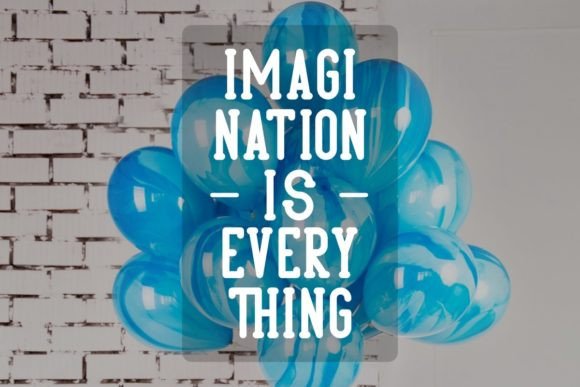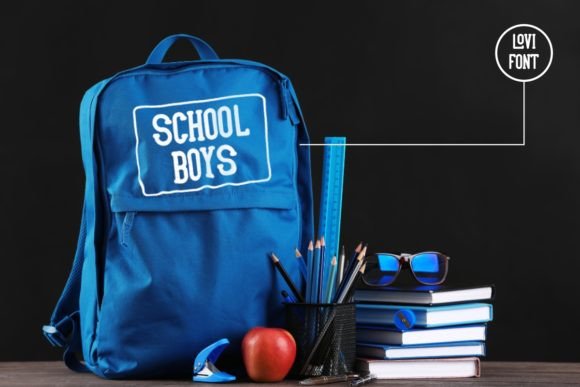
Introduction to Lovi Font
Do you remember that moment when you stumble upon a design resource that changes the game for your creative project? For many designers, it’s that ‘aha’ moment when a unique font can elevate a concept from bland to grand. For us, that moment came when we discovered the Lovi Font – a vibrant and playful typeface that’s perfect for adding a dash of excitement to any design project.
With its high-quality design and transparent background, the Lovi Font is an ideal addition to any designer’s toolkit. Its dynamic and expressive nature encourages experimentation and creativity, allowing you to craft unique and memorable designs that capture attention. Whether you’re working on children’s products, playful branding, or invitations, the Lovi Font is sure to bring a sense of whimsy to your designs.
Key Features of Lovi Font
- High-quality, professional design resource ideal for creative projects.
- Transparent background option for effortless layering and customization in design projects.
- Perfect for designers and artists working on creative projects, including graphic design, typography, and digital art.
- Unique, modern design style that can add a touch of sophistication and elegance to any creative project.
Honest Review: Lovi Font
I recently had the chance to work with the Lovi Font, and I must say it’s a fantastic addition to any designer’s toolkit. As a design resource, it offers a wide range of styles and versatility that can elevate any creative project.
- High-quality design with crisp lines and clean typography.
- Translucent background options that allow for seamless integration with any design.
- Comes in a range of weights and styles, making it perfect for headings and body text.
⚠️ Limitations:
- Some users may find the font too playful or whimsical for more formal projects.
Overall, I’m thoroughly impressed with the Lovi Font. Its high-quality design and transparent background make it a fantastic choice for any creative project. While it may have some limitations, the pros far outweigh the cons, and I highly recommend it to designers looking for a versatile and stylish font.
Customization and Tips
To get the most out of the Lovi Font, experiment with different font sizes and styles to create a visually appealing design. You can also use the font on a transparent background to create a clean and modern look. Additionally, use the font in combination with other design elements to add depth and interest to your creative project.
The Lovi Font is suitable for a variety of creative projects, including logos, branding materials, and digital designs. Its high quality and unique design make it an excellent choice for designers looking for a free download resource.